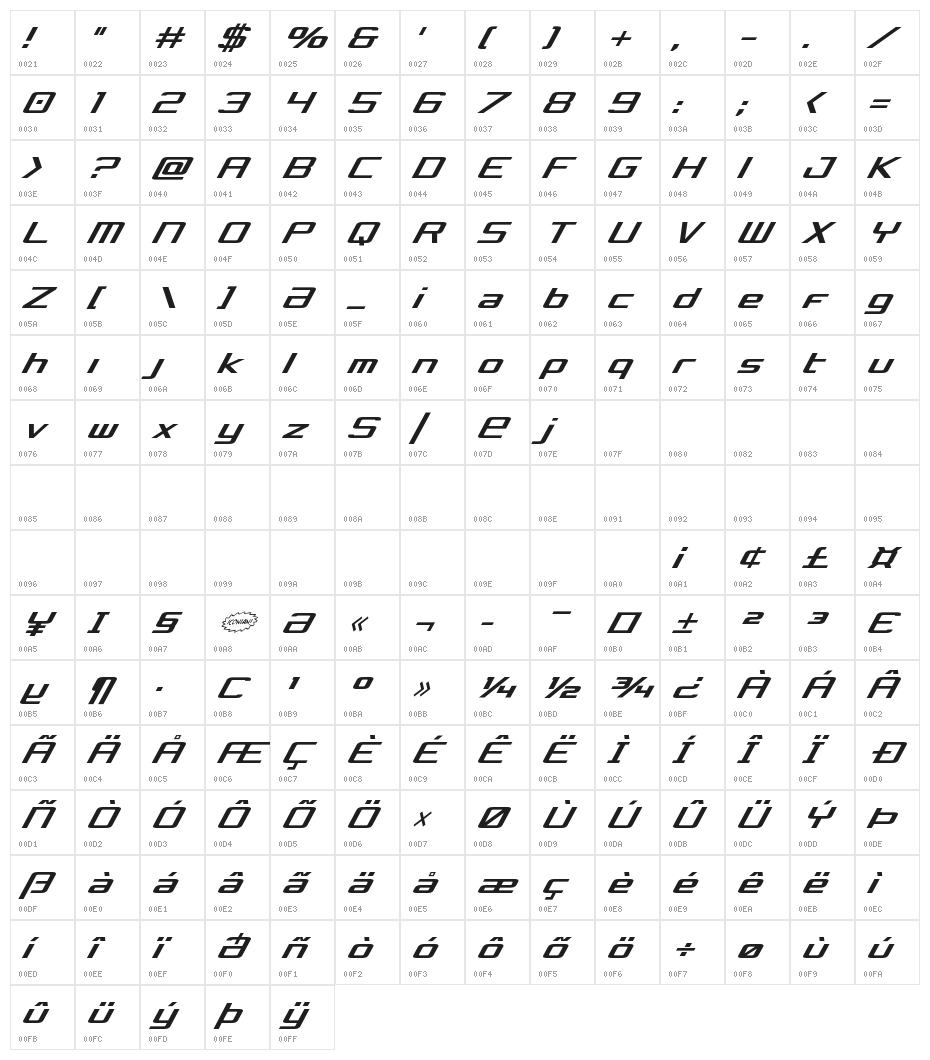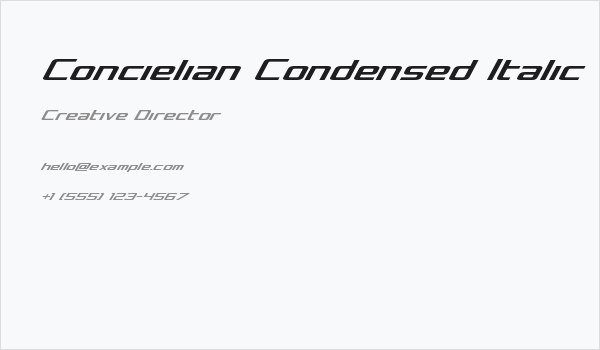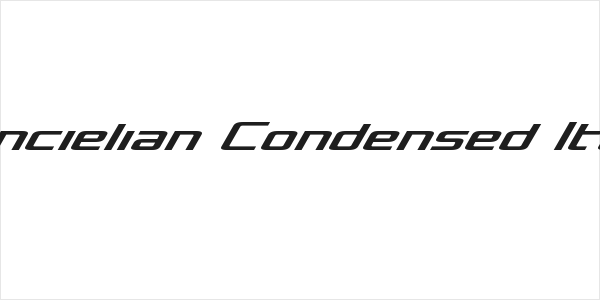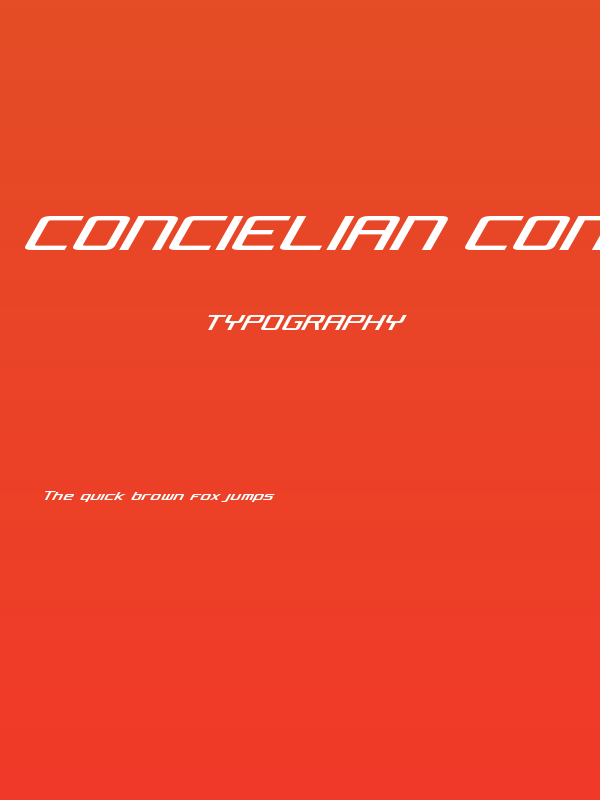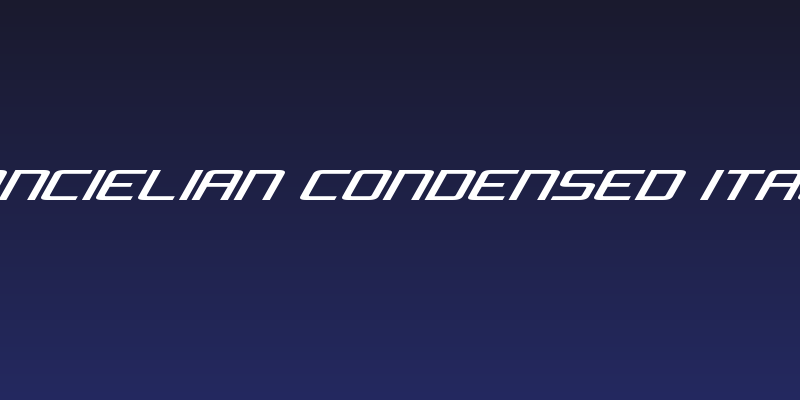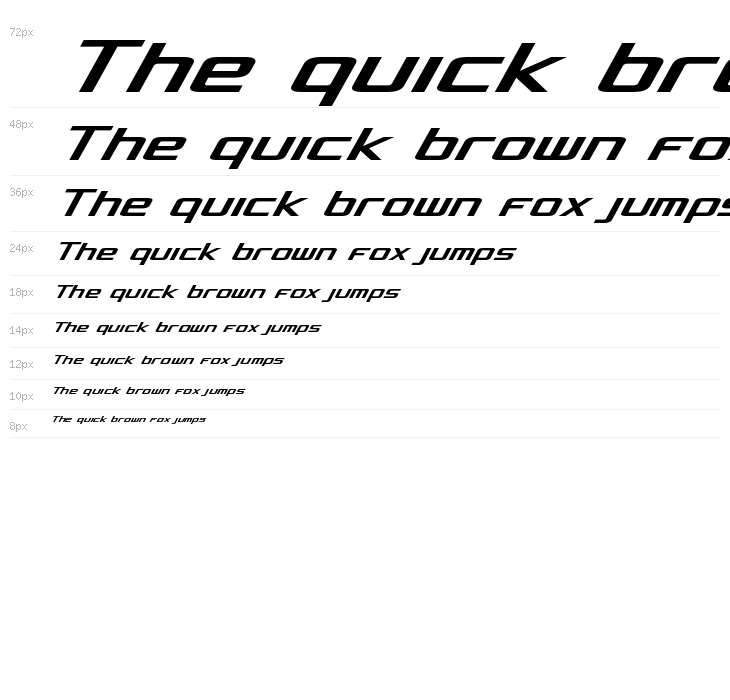
Concielian Condensed Italic Font
Concielian Condensed Italic Description
This font features a sleek, modern design with a condensed and italicized style. The characters are slightly slanted, giving a sense of motion and dynamism. The strokes are uniform, with a medium contrast that adds to its readability while maintaining a stylish appearance. The overall look is futuristic and technical, suitable for projects that require a contemporary and innovative feel. The spacing between characters is tight, enhancing the compact and streamlined aesthetic.